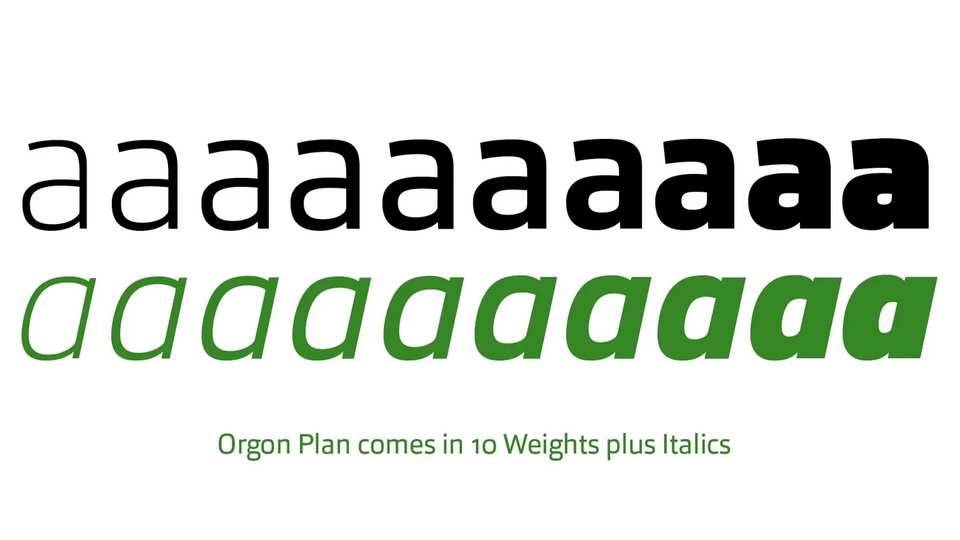
Orgon Plan is a square-cut sans serif typeface.
Free version of Orgon Plan includes Light weight, the complete family consists of 20 styles and is well equipped for advanced typography.
Orgon Plan comes in OpenType format with extended language support. All weights contain small caps, ligatures, superior characters, proportional lining figures, tabular lining figures, proportional old style figures, lining old style figures, matching currency symbols, fraction- and scientific numerals and matching arrows.